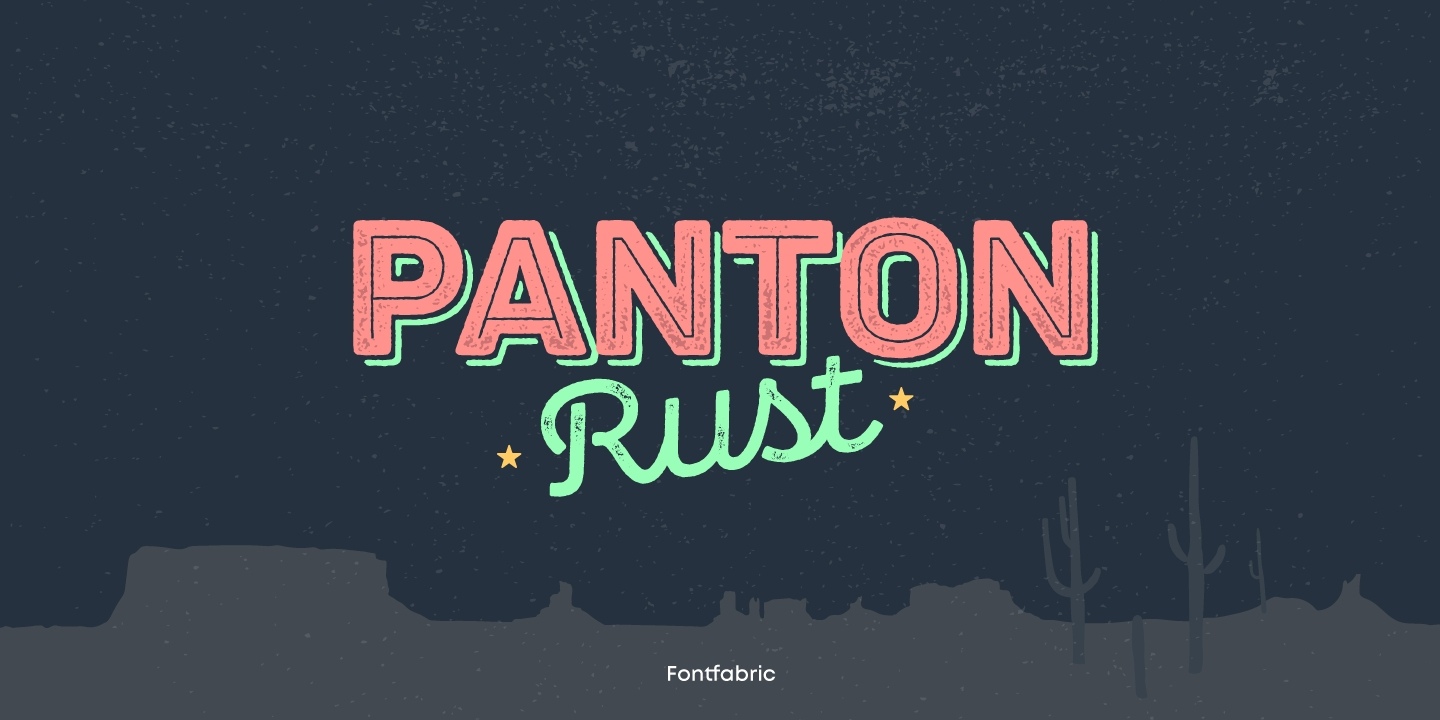
Panton Rust & Panton Rust Script Font
Panton Rust & Panton Rust Script Font is perfect for vintage industrial branding, weathered signage designs, rustic brewery logos, distressed poster artwork, authentic americana graphics, heritage brand identities, artisanal product packaging, and nostalgic advertising campaigns.
This exciting Panton Rust & Panton Rust Script Font evokes authentic industrial heritage with its weathered textures and time-worn character that captures the essence of vintage craftsmanship and American manufacturing history. The font's distressed aesthetic and rugged personality make it an exceptional choice for projects requiring authenticity, craftsmanship, and nostalgic appeal that resonates with audiences appreciating genuine heritage and traditional values.
The Panton Rust & Panton Rust Script Font family encompasses multiple weathered variations including Regular, Bold, Light, Condensed, Script, and Heavy Distressed versions, providing designers with comprehensive options for creating authentic vintage-inspired brand communications and nostalgic typographic compositions.
The rugged character of Panton Rust & Panton Rust Script Font makes it particularly effective for craft breweries, artisanal manufacturers, vintage clothing brands, restoration services, and heritage-focused businesses that need to convey authenticity, durability, and traditional craftsmanship. Its weathered styling appeals to consumers who value genuine heritage and handcrafted quality.
Typography specialists choose Panton Rust & Panton Rust Script Font for its authentic distressed textures and exceptional versatility across various applications. The fonts maintain their vintage character from small packaging labels to large architectural signage, ensuring consistent heritage branding and nostalgic appeal throughout all brand touchpoints.
The distinctive weathered personality of these fonts creates immediate emotional connections through powerful associations with American industrial heritage and traditional craftsmanship. This makes them invaluable for brands seeking to leverage authenticity and heritage storytelling for marketing campaigns and brand positioning strategies.
Heritage-conscious brands utilize Panton Rust & Panton Rust Script Font to establish authentic identities that communicate tradition, quality, and time-tested reliability in modern markets. The typefaces' vintage appeal helps organizations differentiate themselves while appealing to consumers who appreciate craftsmanship, authenticity, and genuine heritage in their purchasing decisions.